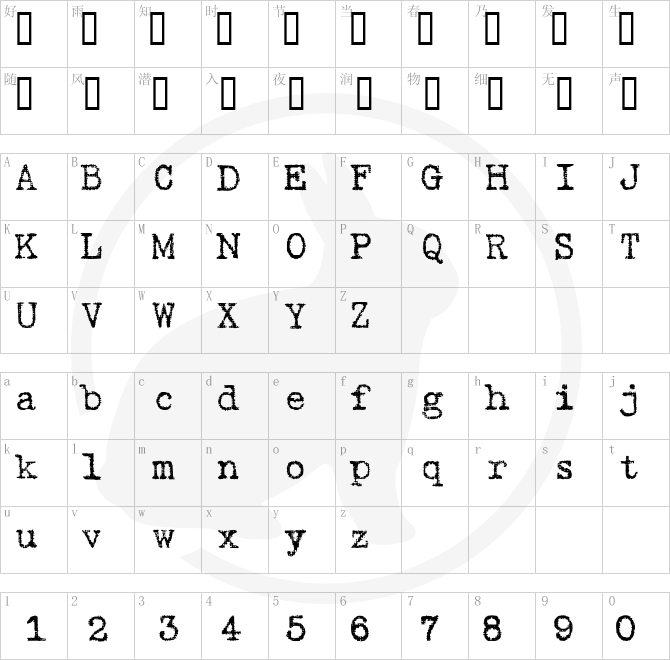
- Font Name:Gabriele Dark Ribbon FG
Gabriele-Dark-Ribbon-FG-Regular.ttf is a very beautiful artistic font, Gabriele-Dark-Ribbon-FG-Regular.ttf is widely used in the design and printing of various books and pictures,Gabriele-Dark-Ribbon-FG-Regular.ttf has a strong visual impact,Gabriele-Dark-Ribbon-FG-Regular.ttf is a commonly used font in newspapers, magazines and books, and is used in posters, e-commerce Poster design, store design, logo design, font design and other fields.Gabriele-Dark-Ribbon-FG-Regular.